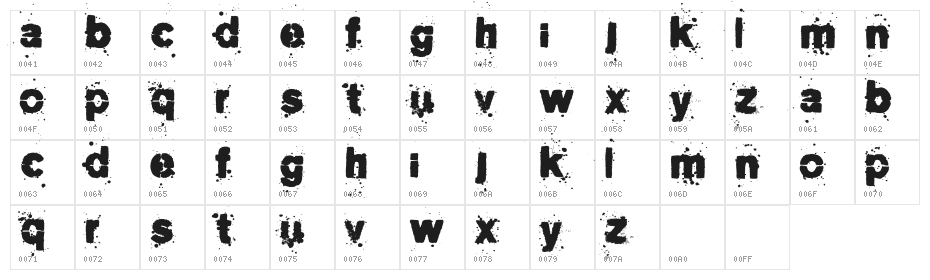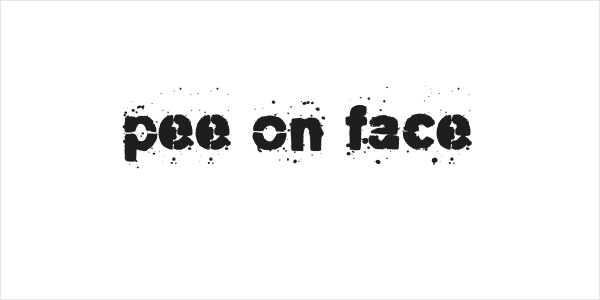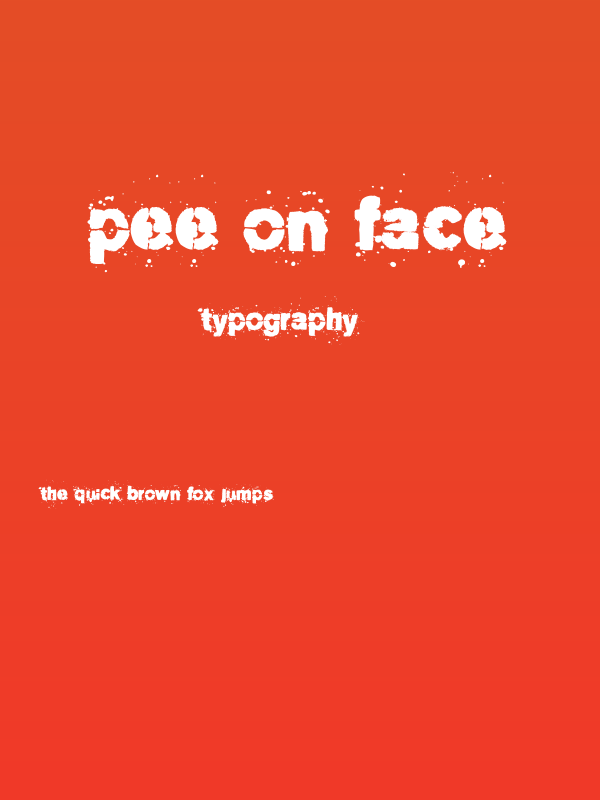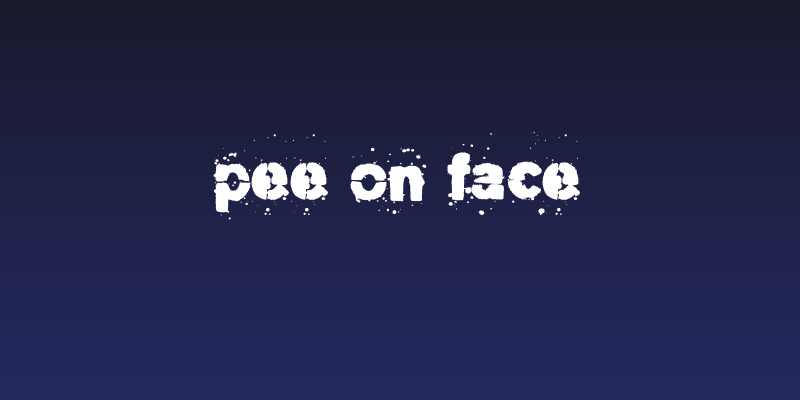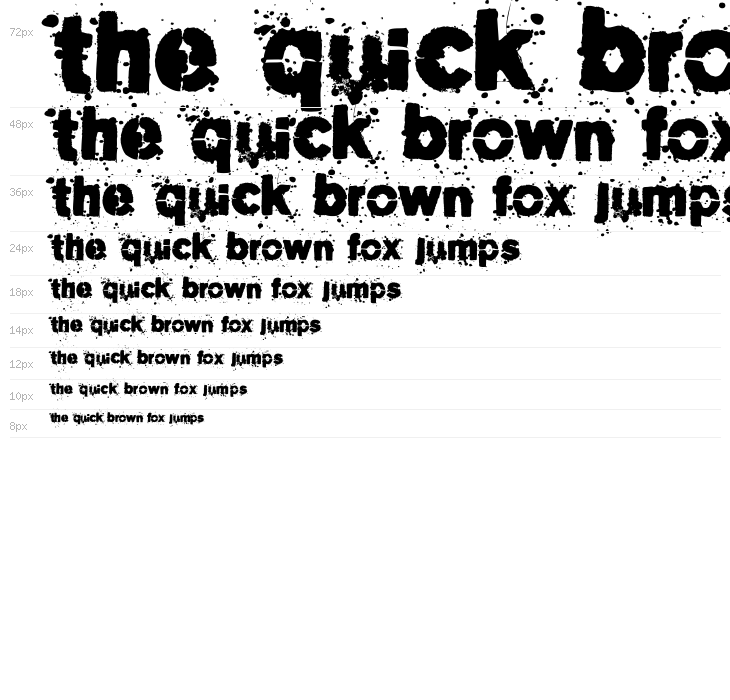
Pee_on_face Font
Pee_on_face Description
This font features a bold, distressed style with a splattered paint effect, giving it a grungy and urban appearance. The characters are thick and blocky, with irregular edges that enhance the rugged look. The splatter effect varies across the letters, adding a dynamic and chaotic feel. This font is designed to stand out and make a statement, perfect for projects that require a bold and edgy aesthetic.
| Overall Style | Grunge, Urban, Edgy |
| Proposed Projects | Ideal for album covers, streetwear branding, graffiti art, and edgy poster designs. |